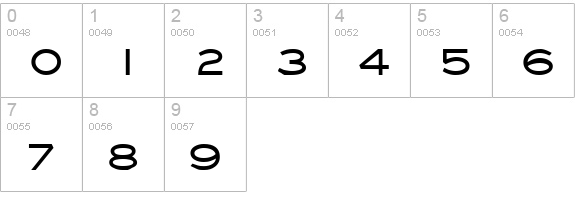
Eye glass Bold Font Details
Eye glass Bold is a strong, high-contrast variant in the Eye typeface family \xE2\x80\x94 well suited to headlines, attention-grabbing titles, and strong calls-to-action.
Eye glass Bold font is a striking and modern typeface designed to make a bold statement. With its sleek lines and strong presence, this font is perfect for creating eye-catching designs that demand attention. The bold and distinctive characters of Eye glass Bold font are sure to stand out in any project, whether it's for branding, advertising, or graphic design. Best of all, Eye glass Bold font is available for free download at FontsMarket.com. This means you can easily access this versatile and impactful font to elevate your designs without any cost. Don't miss out on the opportunity to add Eye glass Bold font to your font collection and take your projects to the next level. Download it now and unleash your creativity with this powerful and dynamic typeface.